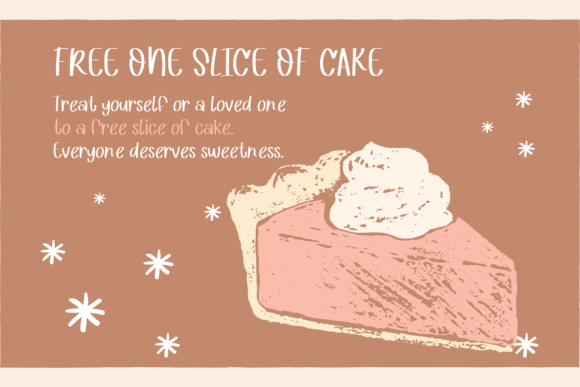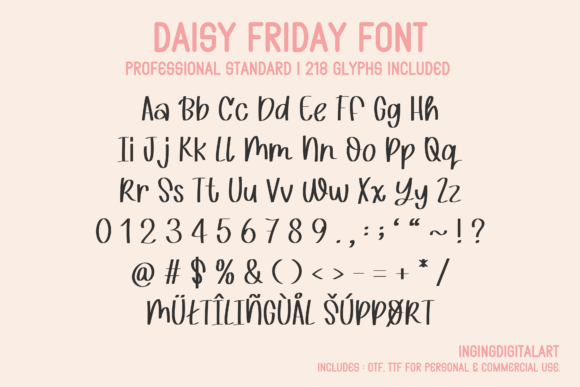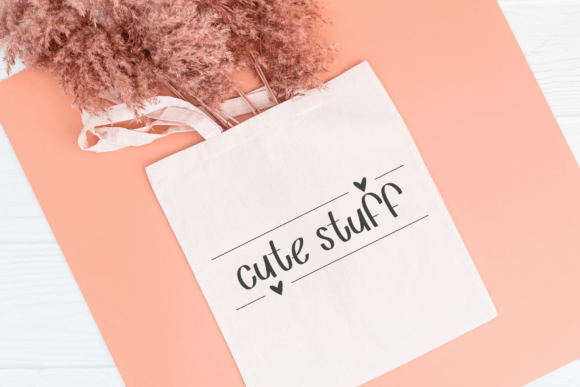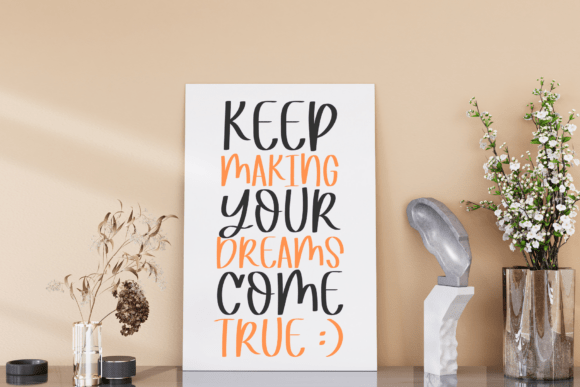
Introduction to Daisy Friday Font
“Daisy Friday” is a cute brush font that is perfect for social media, Goodnotes, or digital planning.
Use it for branding, decor crafts, invitations, and more This font includes uppercase and lowercase letters, numbers, basic punctuation marks, and international characters.
Key Features of Daisy Friday Font